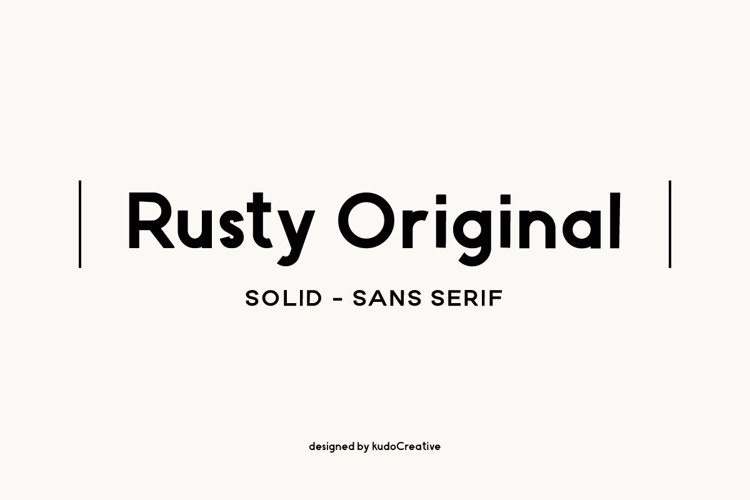
Rusty Font
Rusty - sans serif fonts family
is a balance of hard lines and smooth curves, modern touch and dynamic
FEATURES
Regular / Italics / Bold/ Numbers & Punctuation / Extensive Language Support
PERFECT FOR USE
Rusty works great in any branding, logos, magazines, films. The different weights give you full range to explore a whole host of applications,